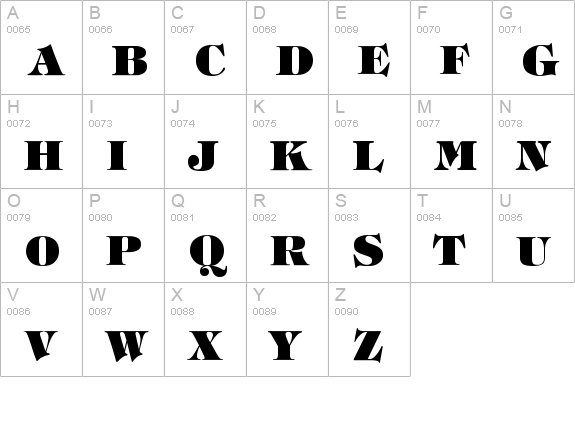
Timpani_Heavy-Normal Font Details
Timpani_Heavy-Normal is the standard, neutral variant in the Timpani_Heavy typeface family \xE2\x80\x94 well suited to general body text, paragraphs, and standard typographic work.
Timpani_Heavy-Normal font is a bold and impactful typeface that will make a statement in any design project. With its heavy weight and strong presence, this font is perfect for headlines, titles, and emphasis. The letters are meticulously designed with thick strokes and sharp edges, giving it a robust and powerful appearance. What sets Timpani_Heavy-Normal font apart is its versatility. It can be used in various contexts, from modern and edgy designs to classic and elegant layouts. Its timeless appeal makes it suitable for both print and digital media, ensuring that your message will be communicated effectively. Not only does Timpani_Heavy-Normal font offer exceptional style, but it also comes with the added bonus of being free. Yes, you read that right! This font is freely available to download at FontsMarket.com. You can effortlessly add this striking typeface to your collection without any cost. Whether you are a professional designer or a creative enthusiast, Timpani_Heavy-Normal font will elevate your projects to new heights. Its boldness and character will grab attention, leaving a lasting impression on your audience. Don't miss out on this fantastic opportunity to enhance your designs with a high-quality, freely accessible font. Visit FontsMarket.com now and download Timpani_Heavy-Normal font to unlock its full potential.